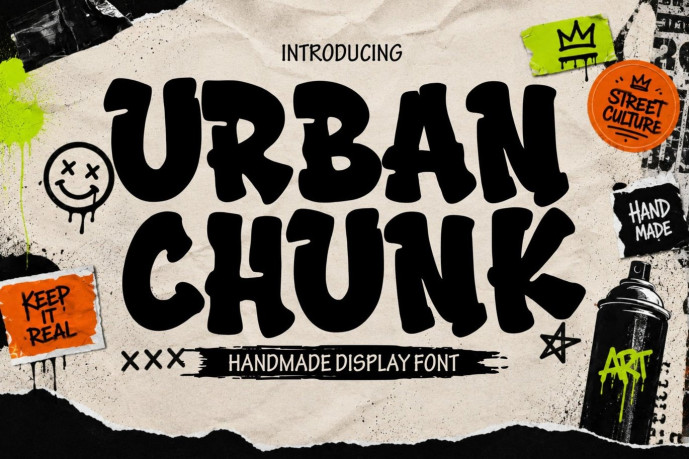
Give your typography a handcrafted edge with Urban Chunk – Handmade Display Font. Designed with bold shapes, organic imperfections, and expressive graffiti vibes, this display font helps create eye-catching headlines and memorable layouts. Its hand-drawn character brings personality and energy, making it suitable for projects that need a bold visual presence while maintaining excellent readability.
Urban Chunk is built for creative work across both digital and print media. The thick letterforms and handcrafted appearance make it effective for posters, flyers, event graphics, album artwork, gaming visuals, YouTube thumbnails, social media content, packaging, stickers, book covers, greeting cards, invitations, and promotional materials. Whether used for large titles or short display text, it delivers a strong visual impact without relying on decorative effects.
Inspired by hand-painted lettering and graffiti culture, Urban Chunk combines expressive shapes with a clean display structure. The result is a versatile font that works across a wide range of creative styles, from playful and energetic to bold and dramatic. Every character has been carefully designed to create a natural handmade look while maintaining consistent spacing and legibility.
Handmade display font
Bold all-caps character set
Includes numbers, punctuation, and symbols
Multilingual language support
Graffiti-inspired lettering style
Suitable for print and digital projects
Easy to combine with illustrations and graphic elements
Clear readability for headlines and large typography
Why Designers Love It Urban Chunk offers a handcrafted appearance that immediately adds personality to typography without becoming difficult to read. Its bold proportions help titles stand out across posters, banners, presentations, social media graphics, and promotional materials, while the organic letterforms create a more expressive look than standard display fonts.
The complete character set—including all caps, numbers, punctuation, symbols, and multilingual support—gives designers the flexibility to work on a variety of creative projects without switching fonts. Its balanced spacing also makes it easy to create bold headlines, layered compositions, and dynamic layouts that remain clean and organized.
Urban Chunk performs well in both print and digital environments, making it a practical choice for designers who need one display font that can be used across multiple types of creative work.